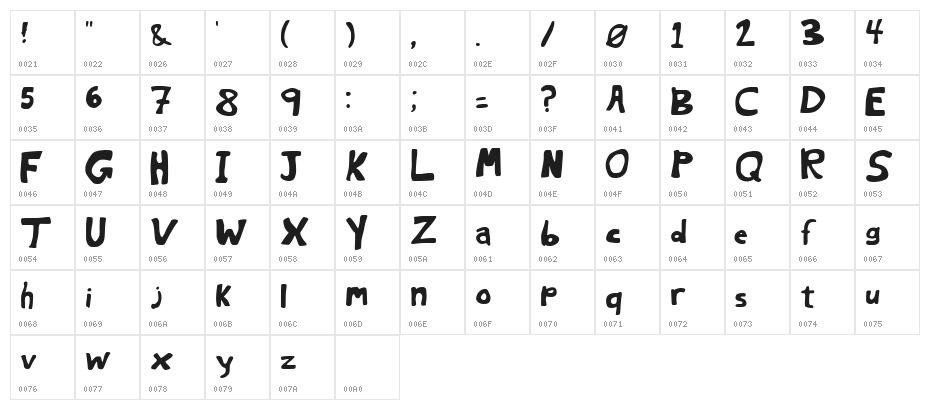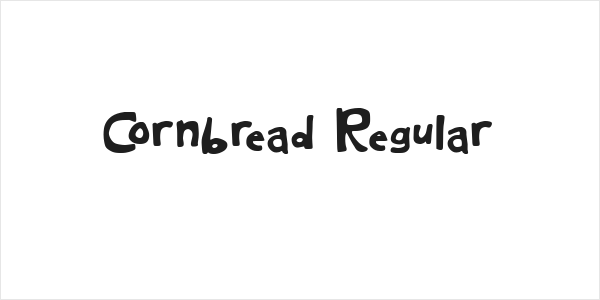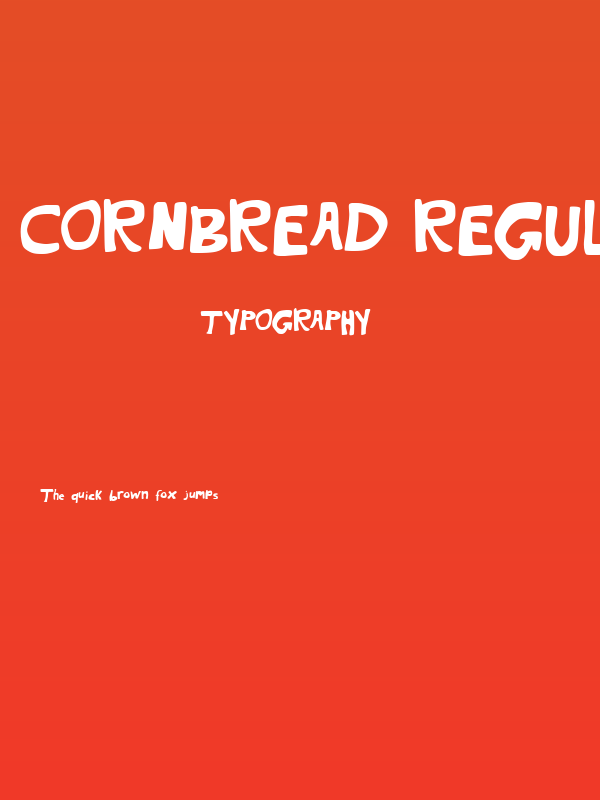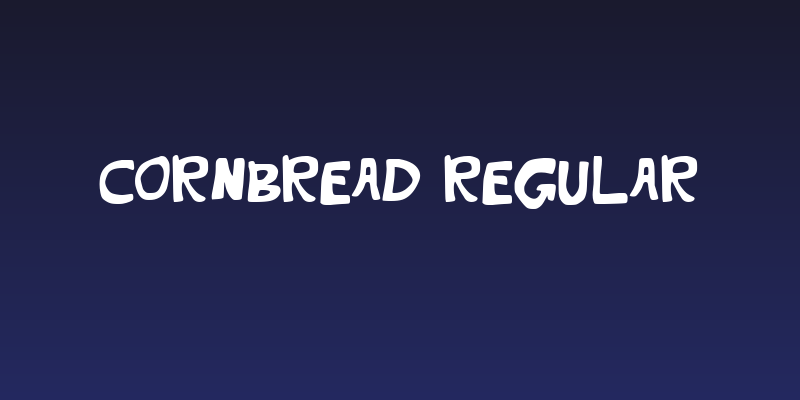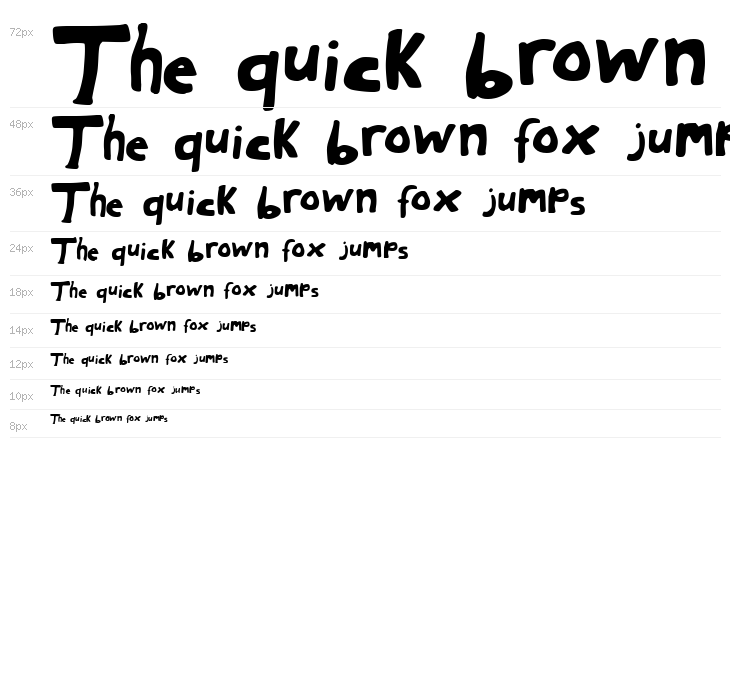
Cornbread Regular Font
This font exudes a playful and informal vibe, characterized by its bold and slightly irregular strokes. The letters have a hand-drawn appearance, with varying thickness that adds a dynamic and lively feel. The uppercase and lowercase letters maintain a consistent style, with rounded edges and a slightly whimsical touch. The numerals and special characters follow the same playful design, making the font suitable for creative and casual applications. Its unique style stands out, making it ideal for projects that require a fun and engaging look.
| Proposed Projects | Ideal for children's books, playful branding, casual invitations, and creative posters. |